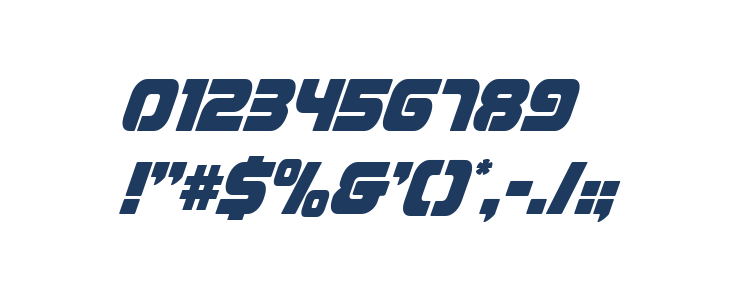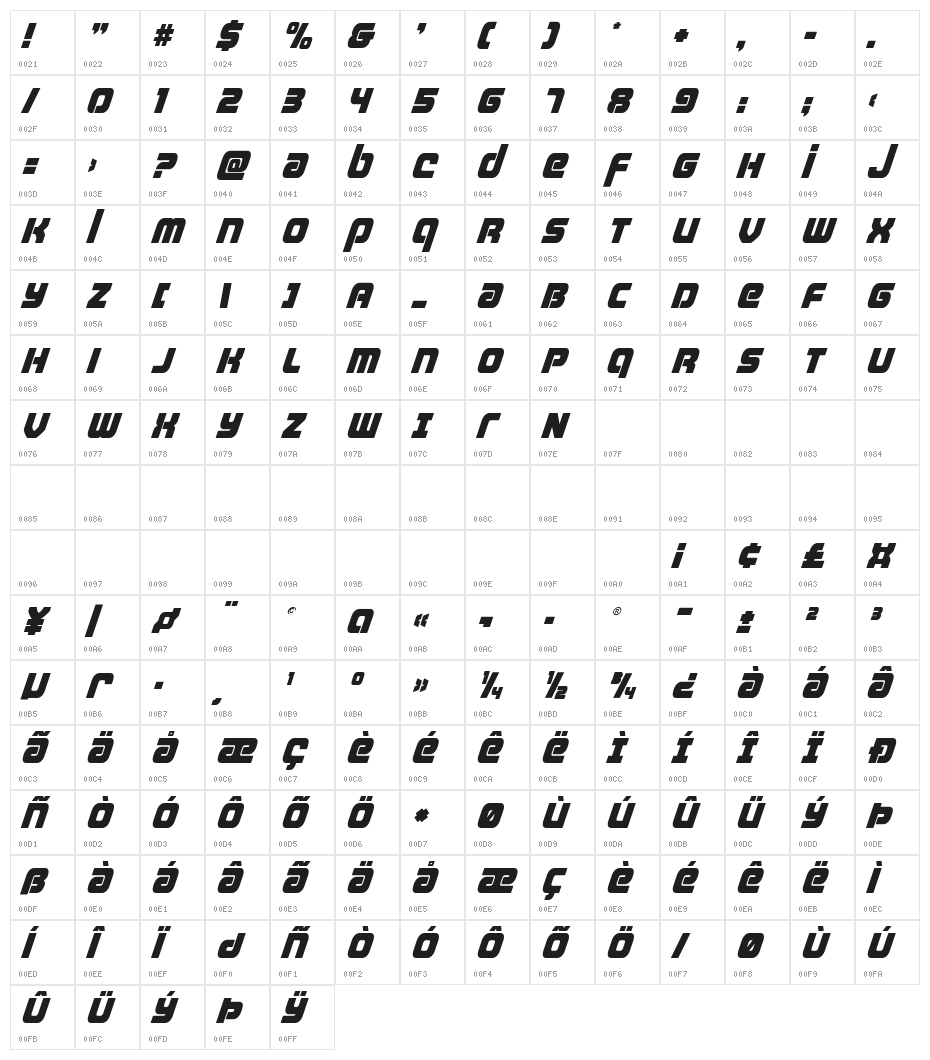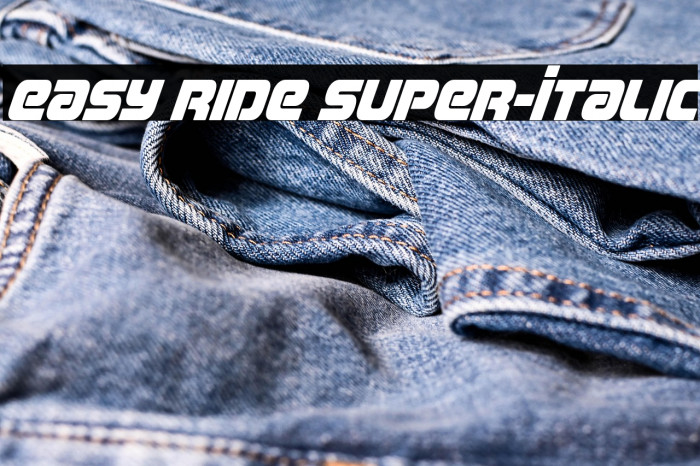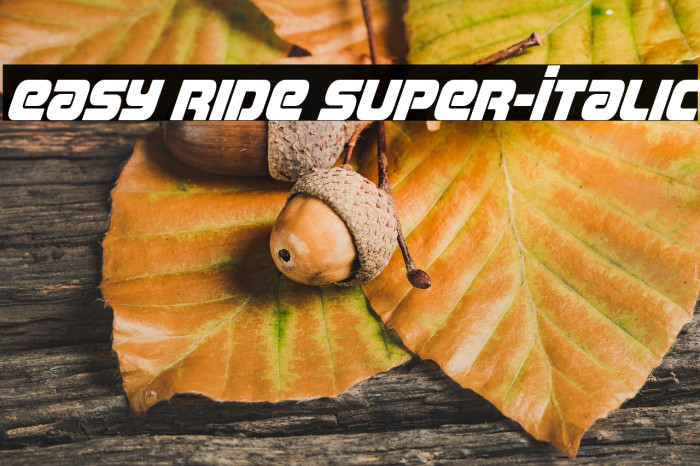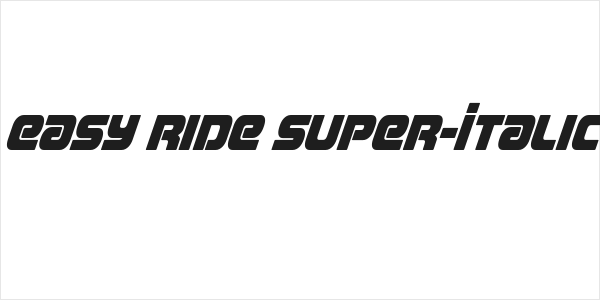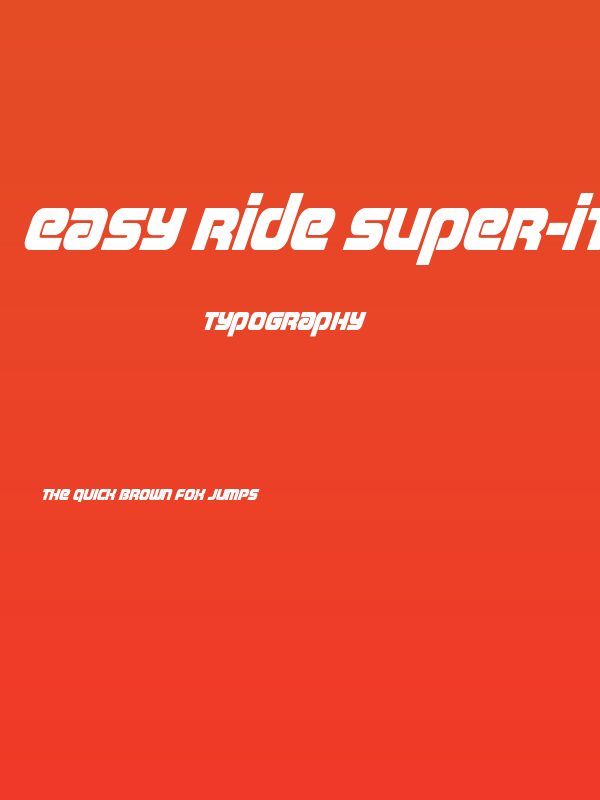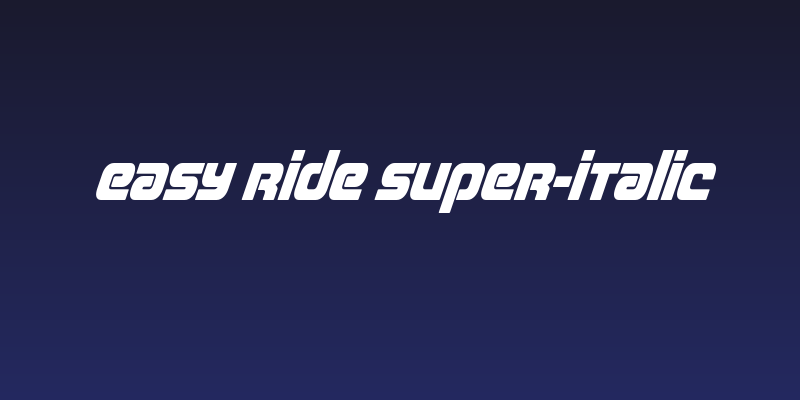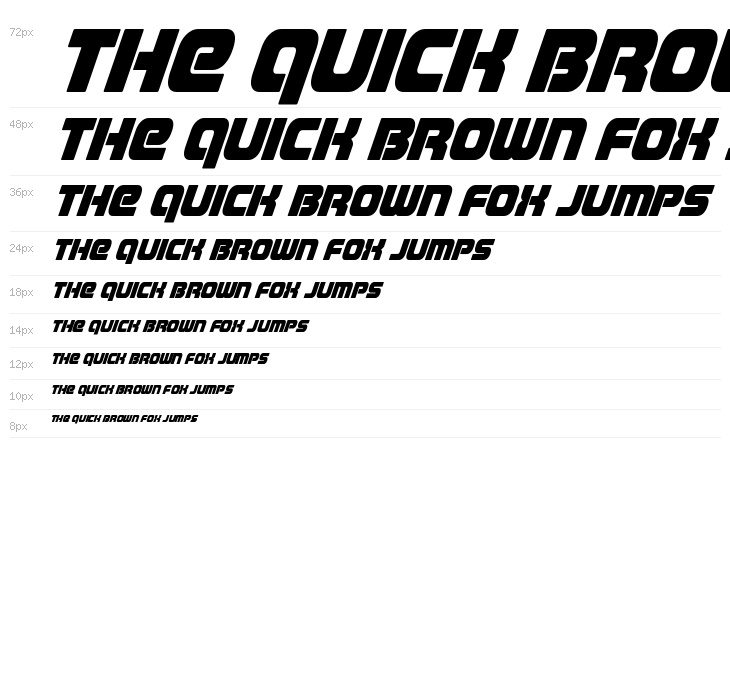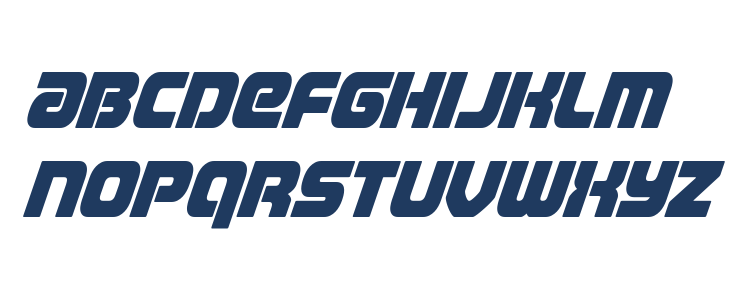
Easy Ride Super-Italic Font
Easy Ride Super-Italic Description
This font features a bold and dynamic style with a strong italic slant, giving it a sense of movement and energy. The characters are wide and have a distinct geometric structure, with sharp angles and clean lines. The uppercase and lowercase letters maintain a consistent style, enhancing readability while retaining a unique flair. Numbers and special characters are designed to match the bold aesthetic, making them stand out. The overall appearance is modern and impactful, suitable for projects that require a strong visual presence.
| Proposed Projects | Ideal for sports branding, automotive advertisements, dynamic posters, and modern logos. |